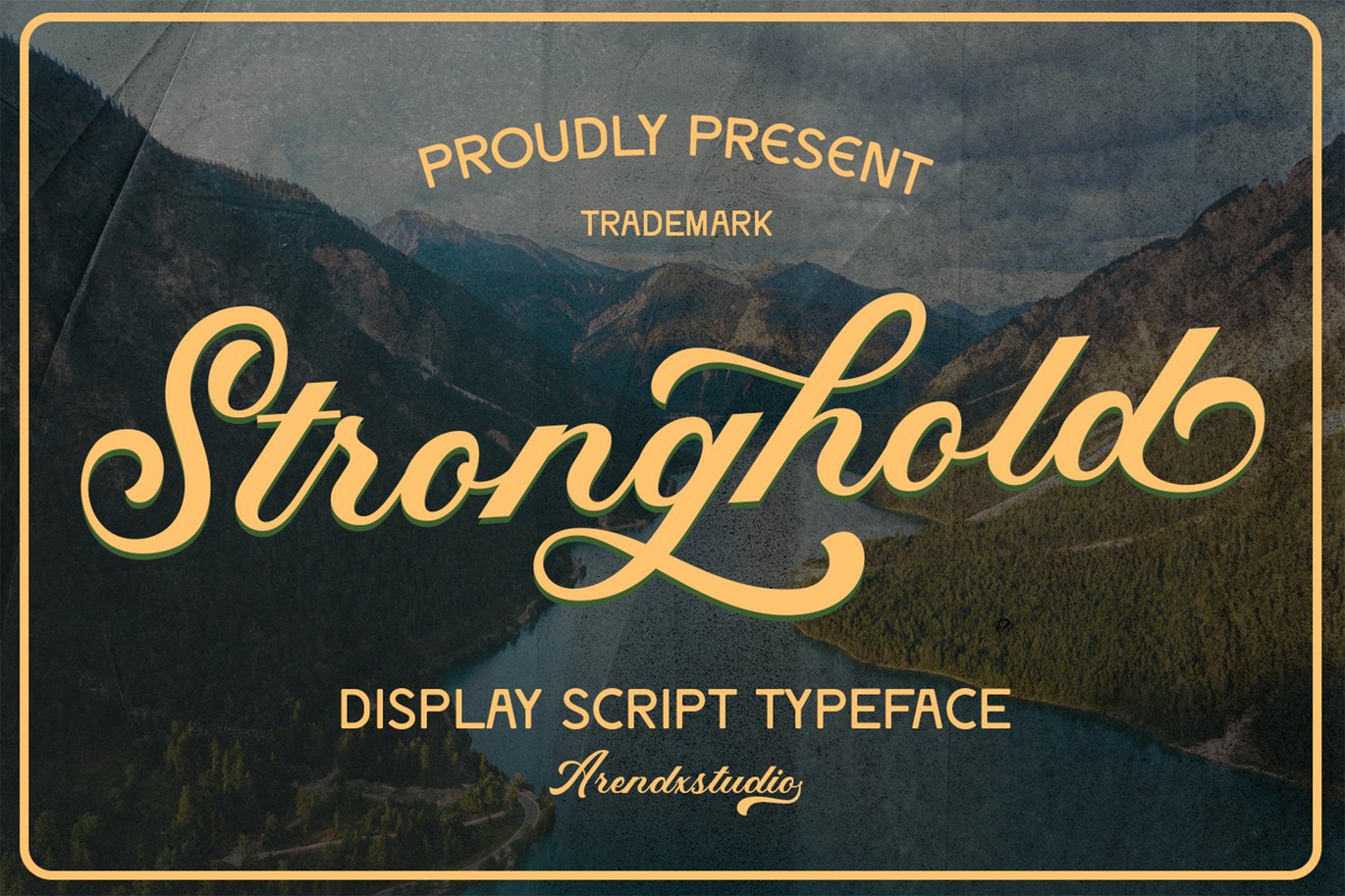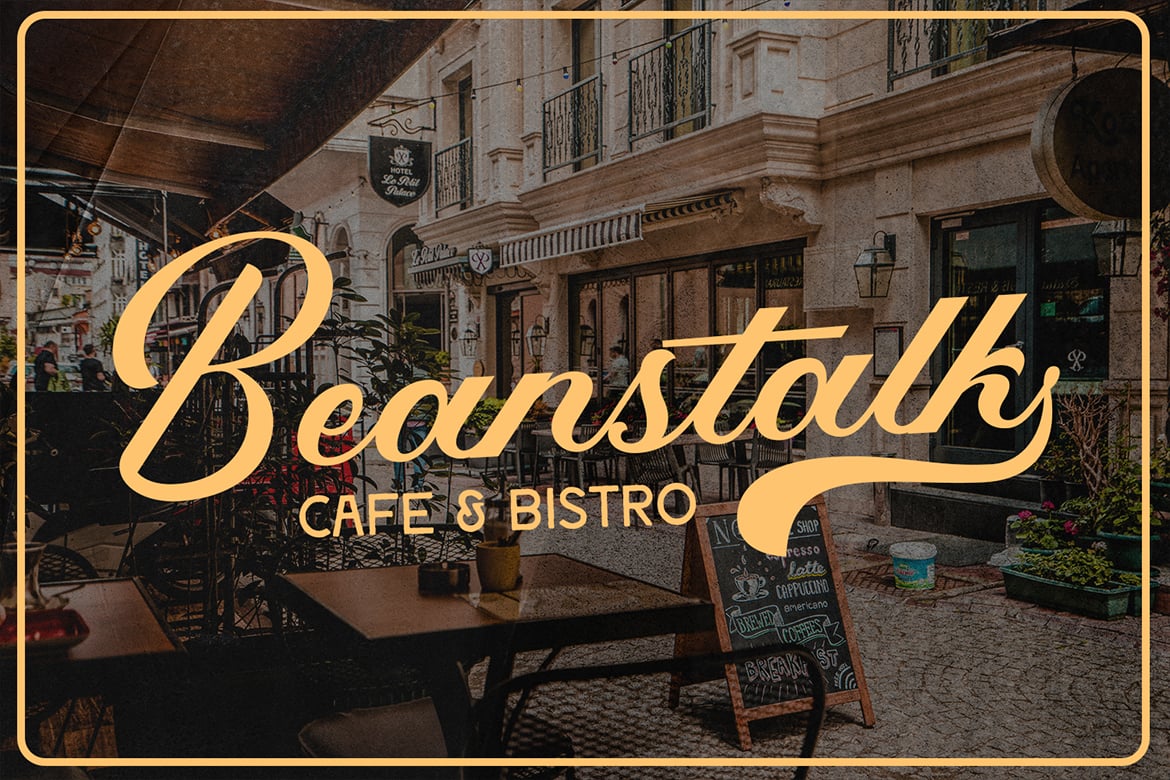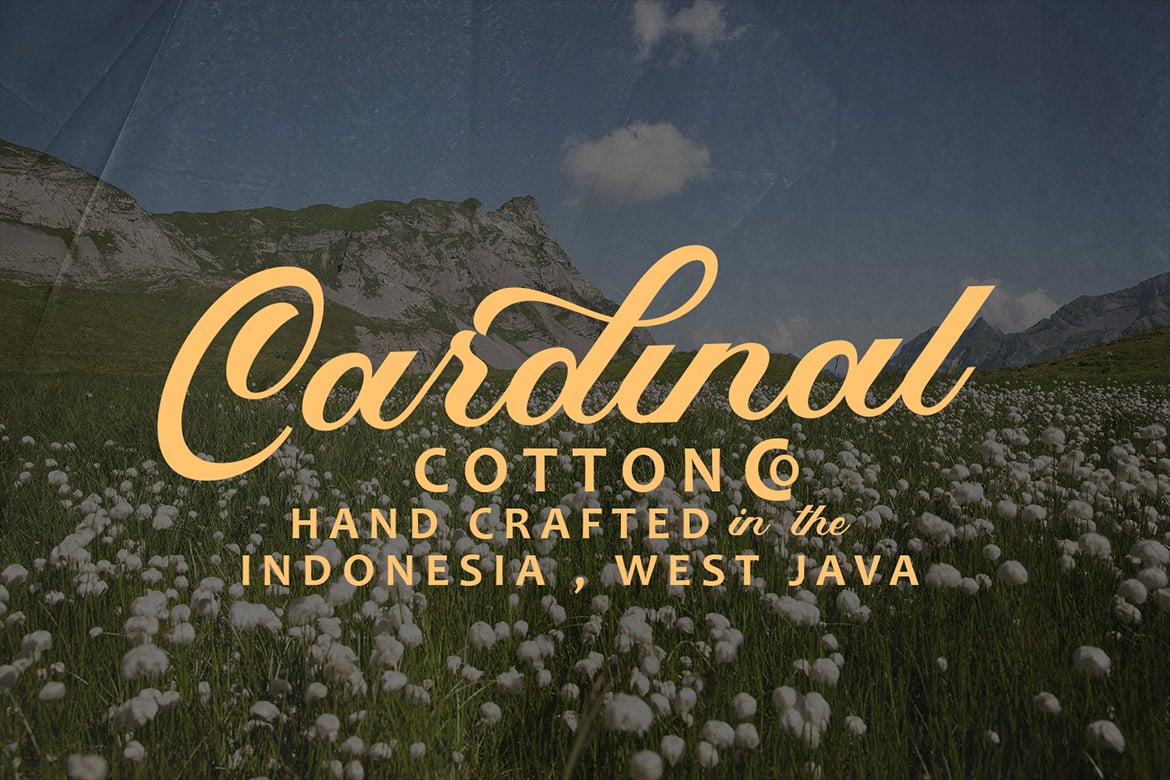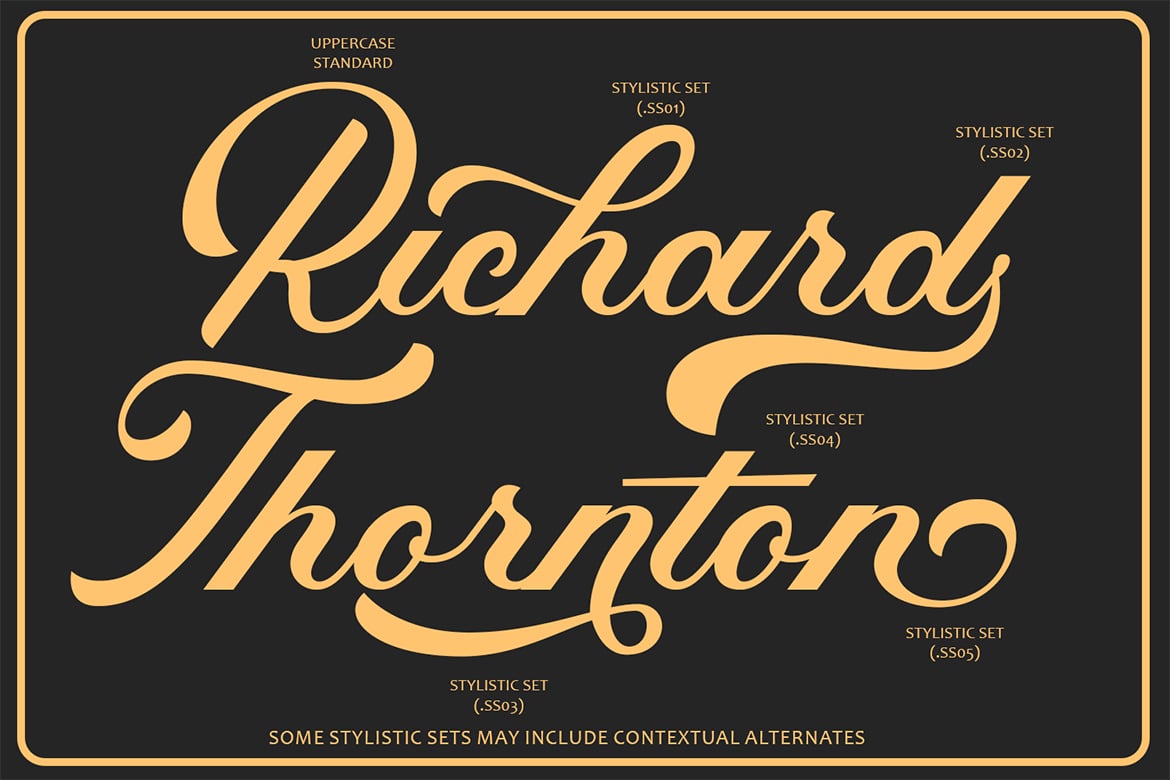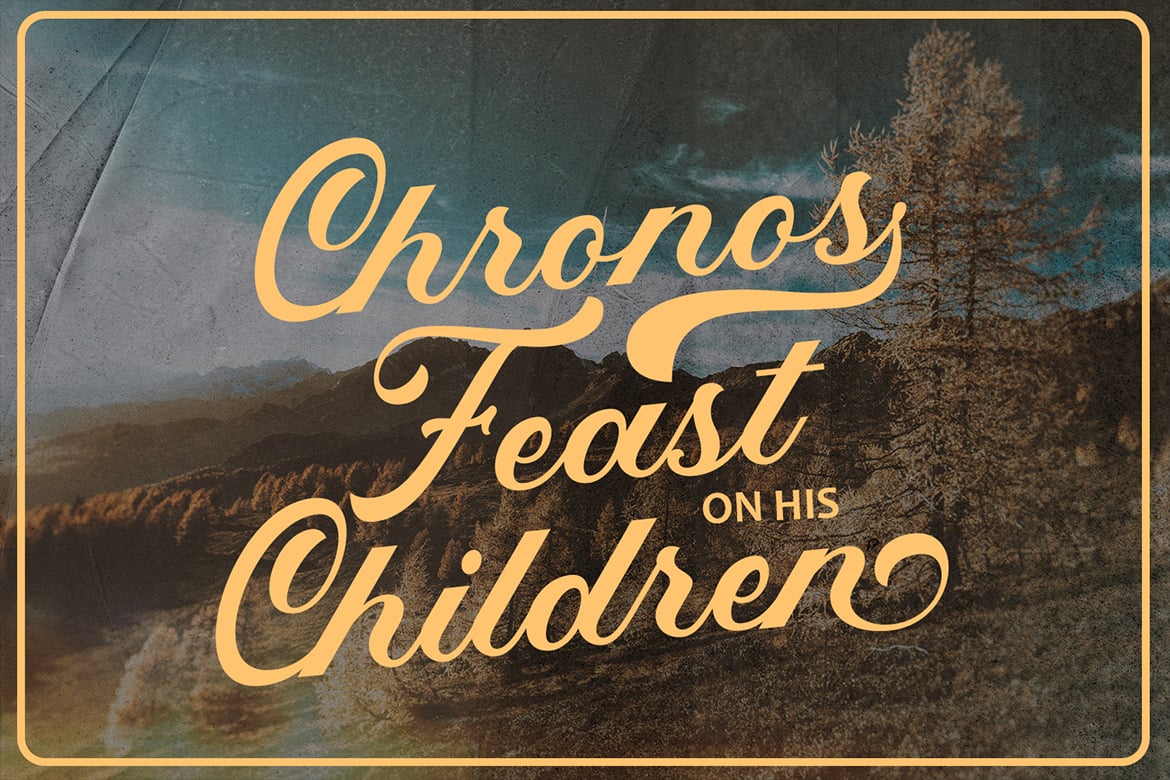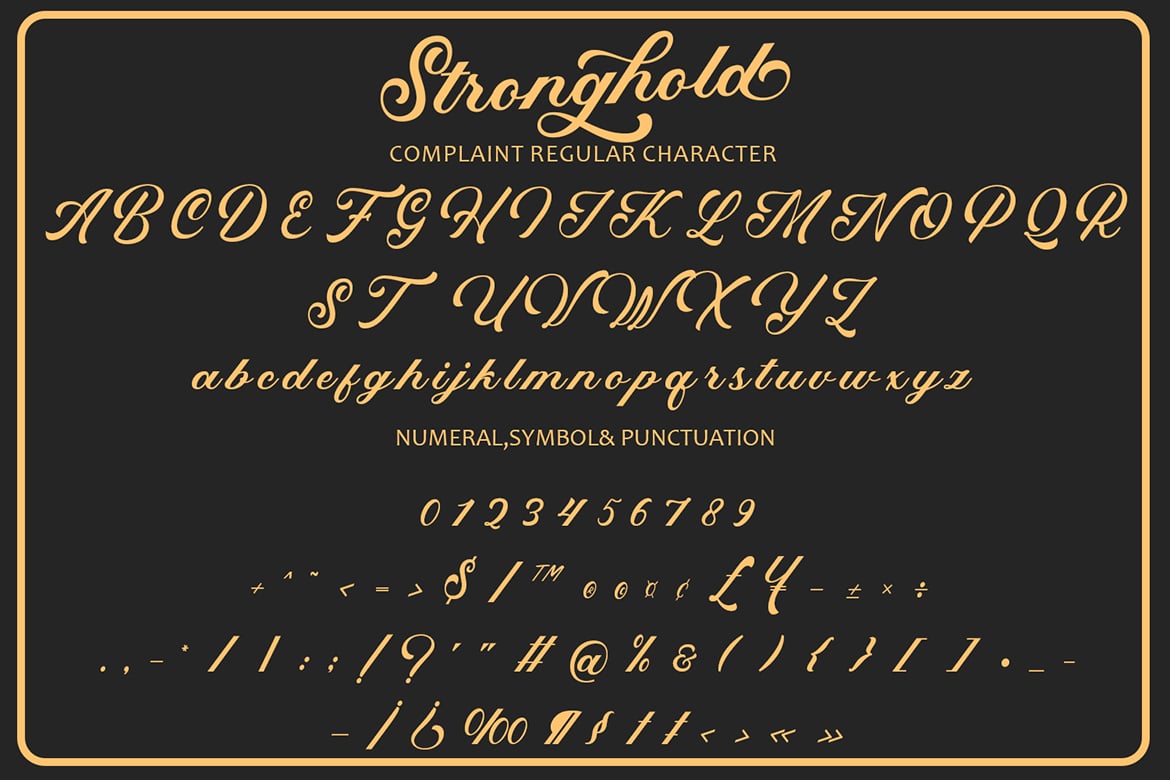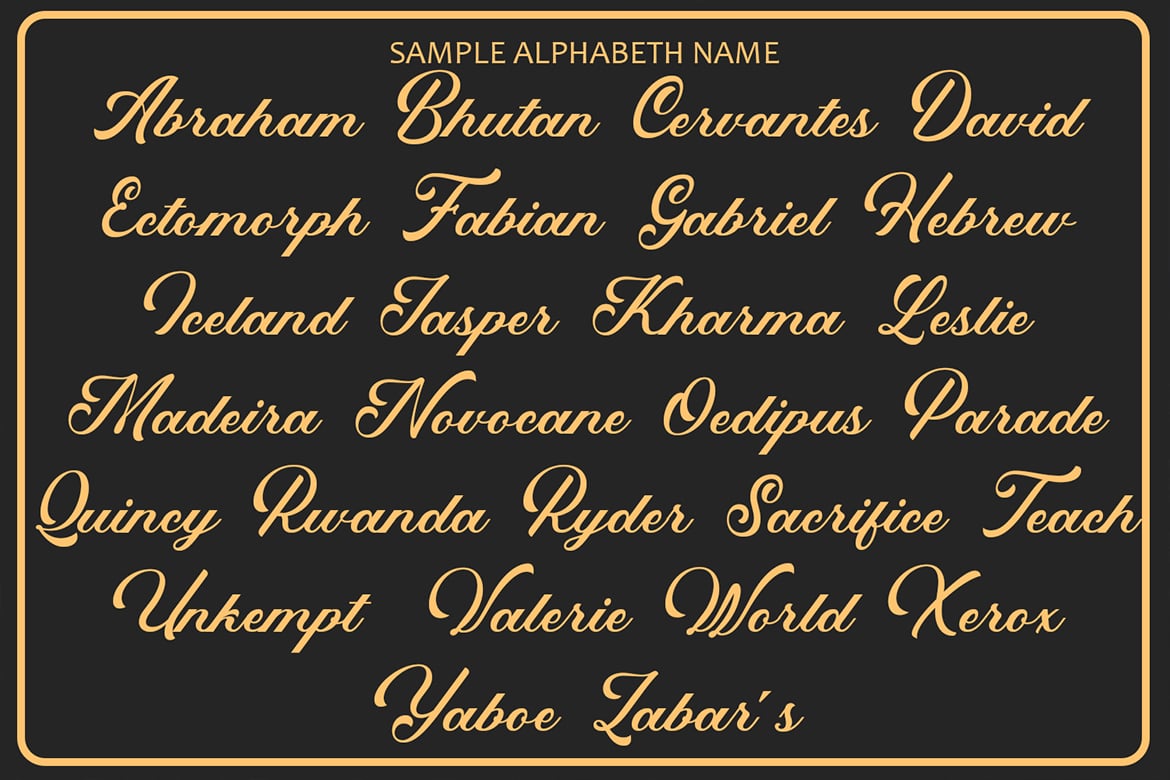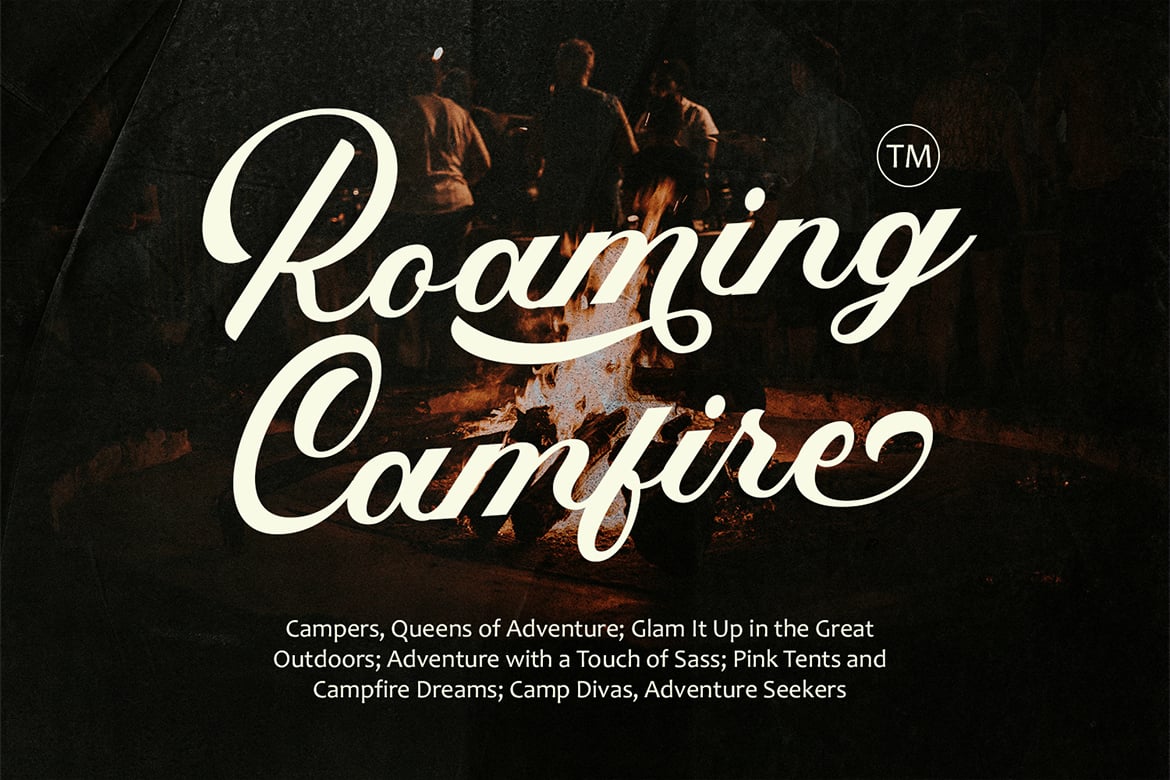
Stronghold – Vintage Script Font
Stronghold font is a vintage script typeface that brings together the elegance and charm of old-world typography with a modern touch. This font is designed to evoke a sense of nostalgia while maintaining the readability and versatility needed for contemporary design projects. Here’s a detailed explanation of its key features and benefits:
Key Features of Stronghold Font
Vintage Aesthetic: - Classic Design: “Stronghold” embodies the timeless beauty of vintage script fonts, with its flowing curves and graceful letterforms reminiscent of mid-20th-century signage, advertisements, and packaging.
- Elegant Flourishes: The font includes elegant flourishes and swashes that add a touch of sophistication and charm, enhancing the vintage appeal.
Smooth Script Style: - Fluid Letterforms: The script style of “Stronghold” features fluid, interconnected letterforms that create a seamless and harmonious flow, ideal for cursive writing.
- Handwritten Feel: Despite its vintage look, the font maintains a handwritten feel, giving it a personal and authentic touch.
Versatile Usage: - Multiple Weights and Styles: “Stronghold” often comes in various weights and styles, from light to bold, allowing for flexible use in different design contexts.
- Extended Character Set: The font includes an extended character set, covering a wide range of glyphs and punctuation marks to support diverse languages and applications.
High Legibility: - Clear and Readable: Despite its decorative elements, “Stronghold” is designed to be highly legible. The careful balance of strokes ensures that each character is distinct and easy to read, even at smaller sizes.
- Well-Kerned: The font features well-kerned pairs, ensuring optimal spacing between characters for better readability and visual appeal.
Uppercase and lowercase characters
Accents (Supports Multilingual Characters)
Stylistic set
Stronghold is a vintage script font that combines the elegance of classic typography with the practicality needed for modern design. Its fluid letterforms, elegant flourishes, and high legibility make it a versatile and timeless choice for a wide range of applications. Whether used in branding, print, or digital media, “Stronghold” brings a touch of vintage charm and sophistication, making it a valuable asset for any design project seeking to evoke nostalgia and elegance.